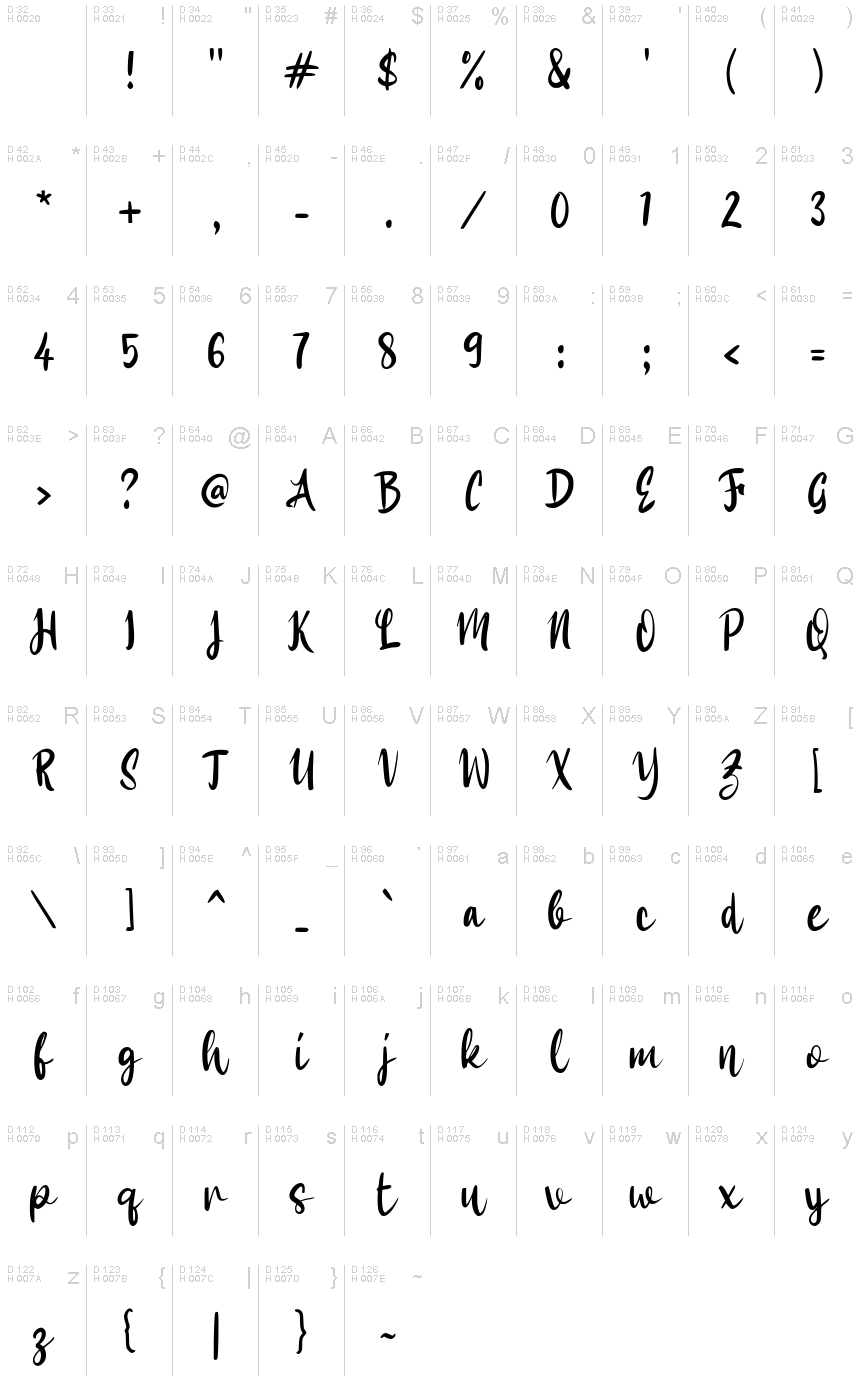
Florenberg
Florenberg, designed by wep, is a handwritten font that exudes a blend of personal touch and elegance. Its fluid strokes and subtle variations in thickness convey a sense of authenticity and warmth, akin to a heartfelt note penned by hand. The aesthetic appeal of Florenberg lies in its graceful lines and organic form, which make it an excellent choice for projects requiring a touch of intimacy and sophistication.
Whether used for invitations, branding, or editorial design, this font's charming style enhances the visual narrative with its approachable yet refined appearance. Florenberg's versatility allows it to adapt seamlessly across various creative contexts while maintaining its distinctive character. Embrace the allure of handwriting with the timeless beauty of Florenberg — where artistry meets accessibility in every curve and line.